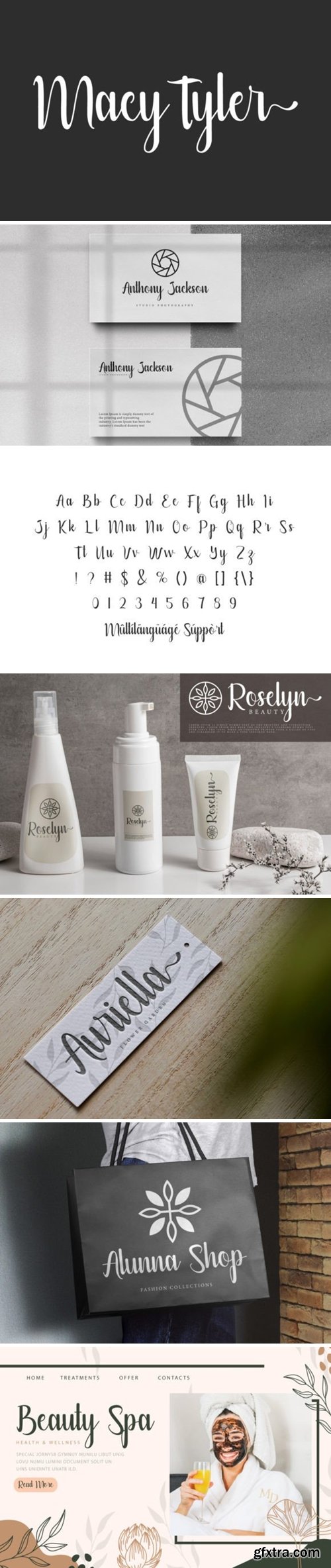
Macy Tyler Font
Macy Tyler is a casual and neat script font that adds a personal touch to any project. With its clean and legible letters, it’s perfect for invitations, greeting cards, and branding. The font has a friendly feel to it, making it a great choice for projects that require a touch of warmth and personality.